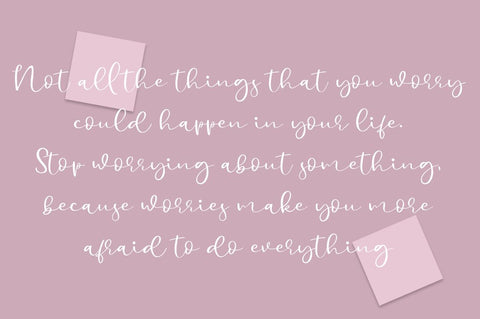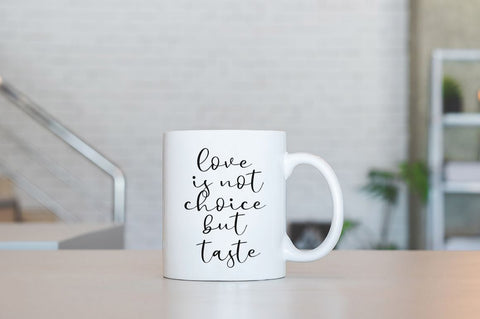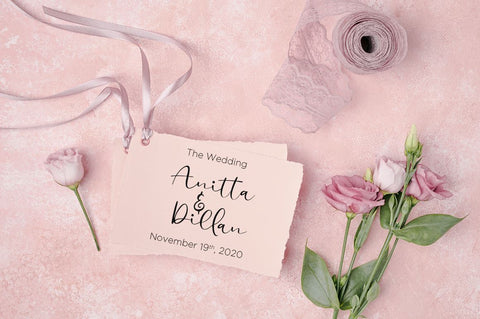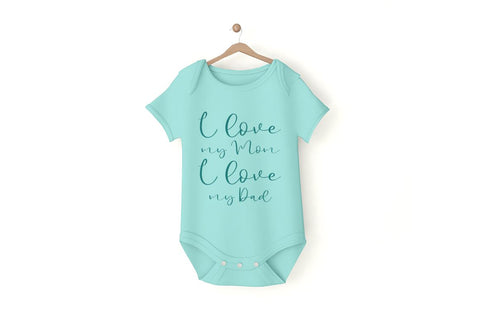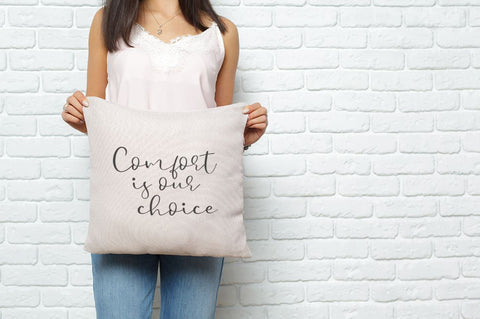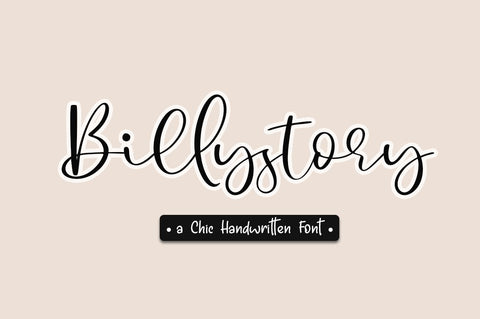
Billystory a Chic Handwritten Script Font
Billystory Chic Handwritten Script Font
Introducing the bouncy handwritten "Billystory" Script Font! If you are needing a touch of casual modern calligraphy for your designs, this font was created for you!